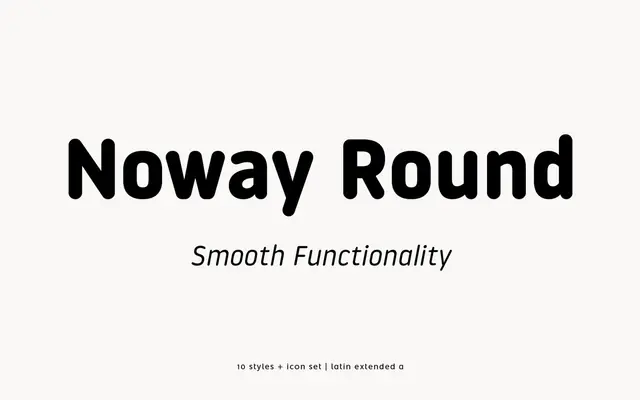
Noway Round
atipo foundry · Raul Garcia del Pomar, Ismael Gonzalez (atipo) · 2015
The rounded sibling of Noway, a softer functional geometric sans with five weights, italics, tabular figures and a matching icon set.
A rounded geometric sans by atipo, drawn as the softer companion to Noway. Ten styles run across five weights from Thin to Bold with matching italics, and the family carries tabular figures, a slashed zero, fractions, superiors and ordinals along with a Noway Round Icons set. Sits in product, interface and identity work where the brand wants warmth without losing the discipline of a functional geometric. Atipo offer Regular and Italic as a free download with the rest of the family on a pay what you want basis.
Atipo describe Noway Round as the rounded sibling of Noway, drawn for friendlier interface and identity work with the same tabular figures, slashed zero and icon companion.